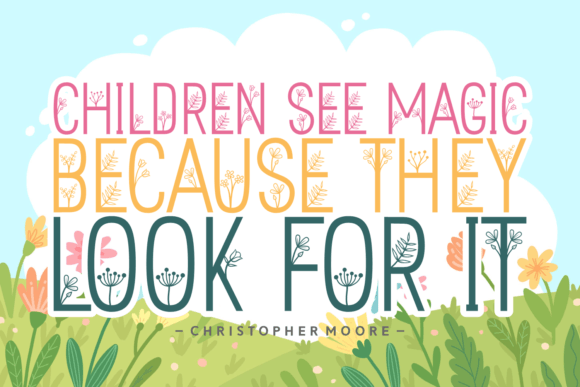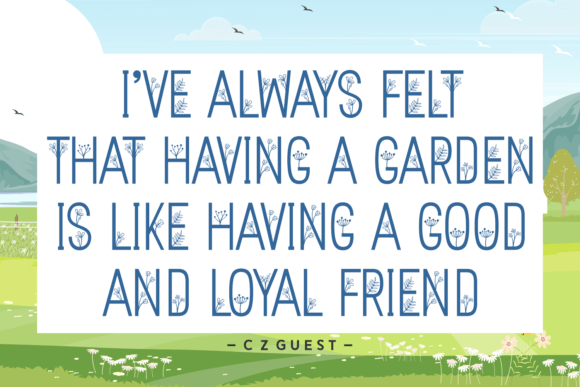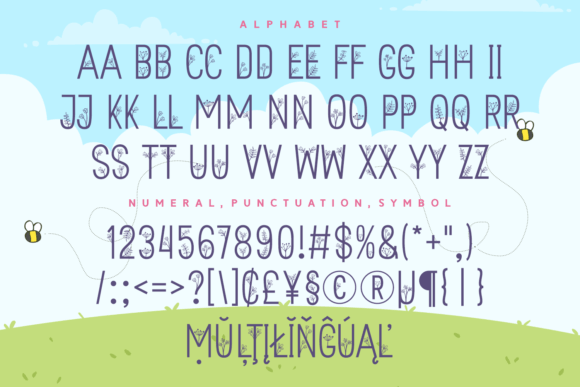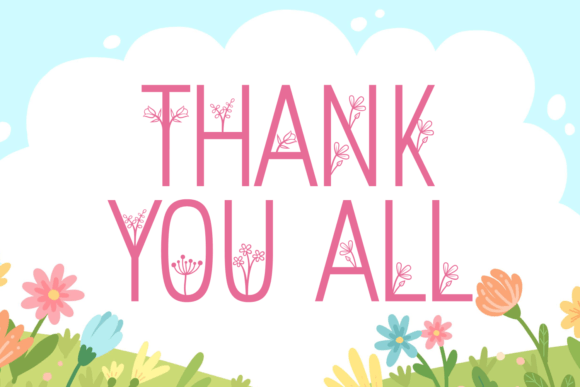
Introduction to Laura Garden Font
Laura Garden is a beautiful decorative font with a botanical motive.
This lovely floral font is ideal for nature-themed projects, branding florist shops, crafting projects, and more Use it to express your creativity.
Key Features of Laura Garden Font
Why Choose Laura Garden Font?